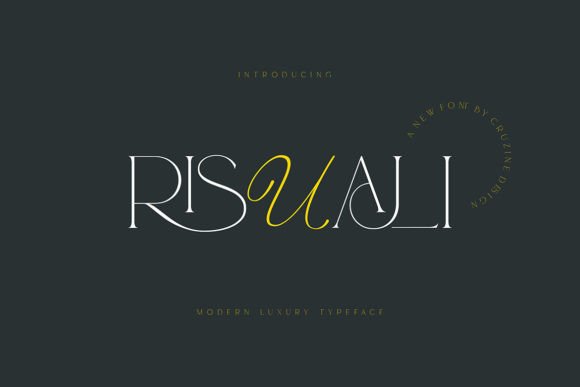
Introducing Risuali, the epitome of sophistication and luxury in the world of typography. This captivating serif font, crafted by the esteemed JumboDesign, exudes an aura of timeless elegance that will elevate your designs to new heights.
Step into a realm of refined typography, where each letterform is meticulously crafted with sweeping curves and sharp serifs, creating a visual symphony that dances across the page. Risuali's classic proportions and strong vertical emphasis lend an air of sophistication to any design, making it the perfect choice for creating an unforgettable impression.
With Risuali, you hold the key to unlocking a world of design possibilities. Create breathtaking website headers that captivate visitors from the moment they land on your page. Craft elegant logos that exude an air of professionalism and luxury. Design eye-catching posters and flyers that demand attention and leave a lasting impression.
But Risuali's versatility extends far beyond the digital realm. With its PUA encoding, this font opens up a world of creative possibilities, allowing you to effortlessly access a treasure trove of glyphs and swashes. Unleash your imagination and add an extra layer of charm and personality to your designs.
Risuali is more than just a font; it's an artistic masterpiece that breathes life into your creations. Its luxurious curves and sharp serifs evoke a sense of nostalgia, harking back to a time when typography was an art form. Whether you're a seasoned designer or just starting out, Risuali is the perfect font to add a touch of elegance and sophistication to your work.
Don't settle for ordinary fonts that blend into the background. Embrace the beauty and distinction of Risuali, and let your designs shine with a brilliance that will leave an indelible mark on your audience.